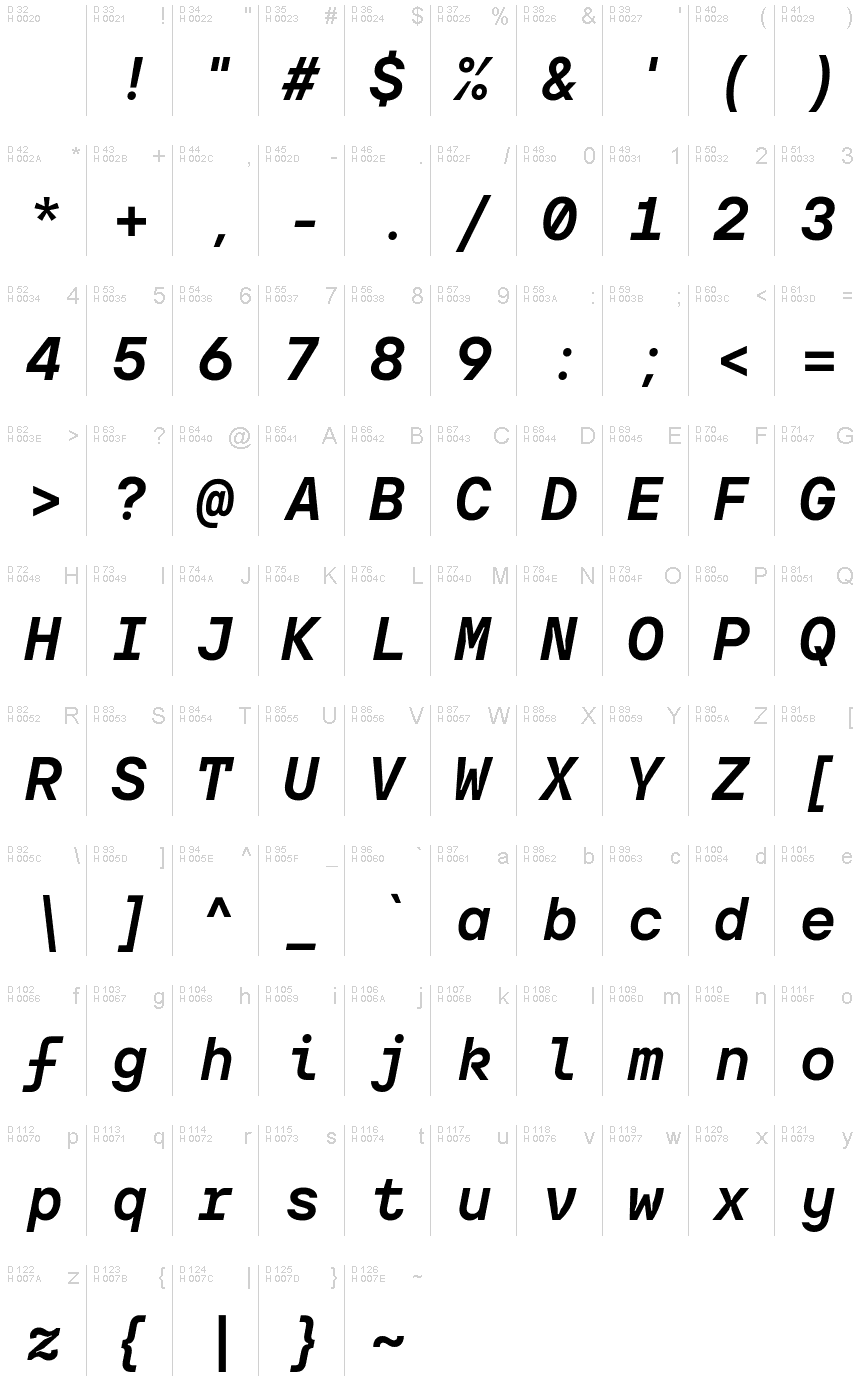
TT Interphases Pro Mono Trl Bold Italic
TT Interphases Pro Mono Bold Italic is a modern sans serif font designed by TypeType Foundry. With its semi-bold weight, this typeface exudes confidence and professionalism.
Its crisp lines and sleek design make it suitable for a wide range of projects, from corporate presentations to tech-oriented websites. Whether you're creating a cutting-edge app interface or designing an edgy fashion magazine, TT Interphases Pro Mono Bold Italic will add a touch of sophistication and style to your project.